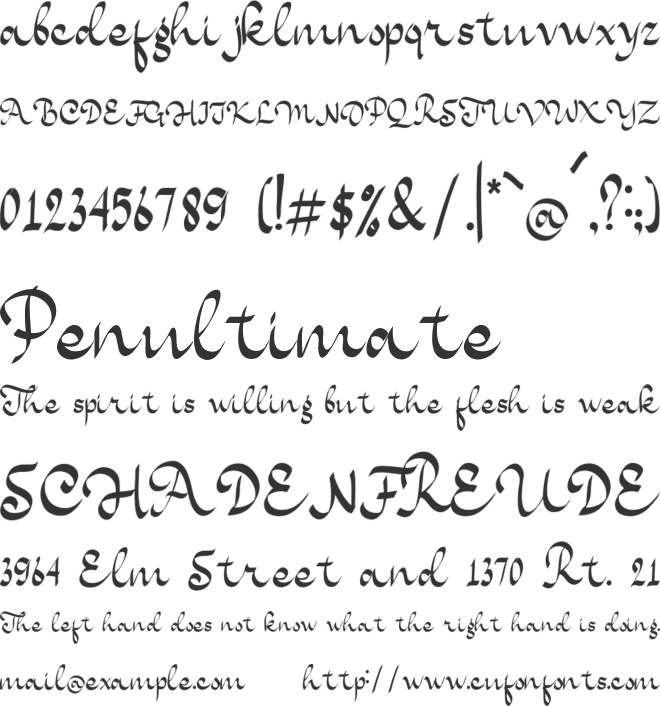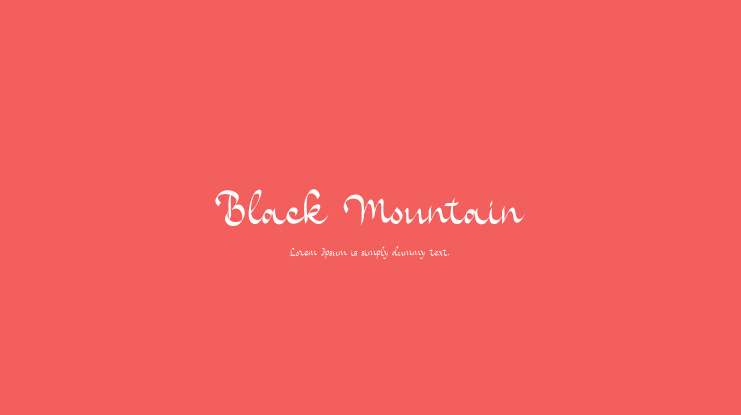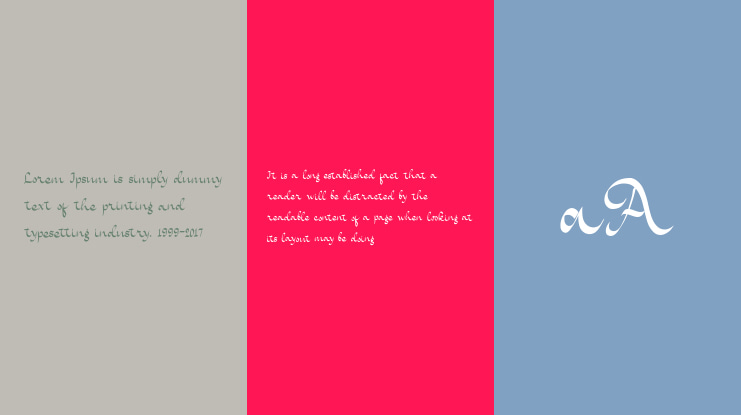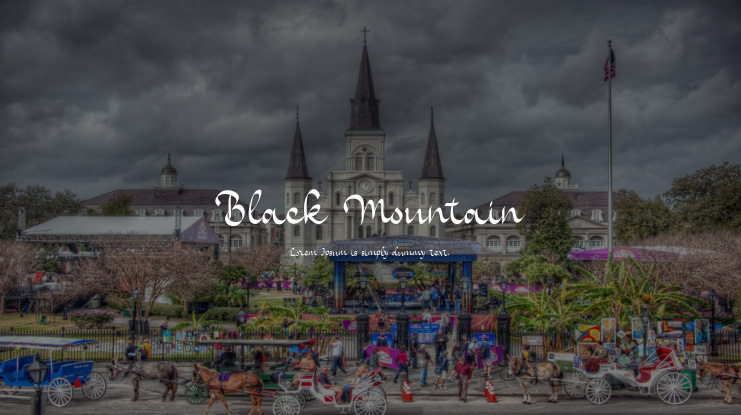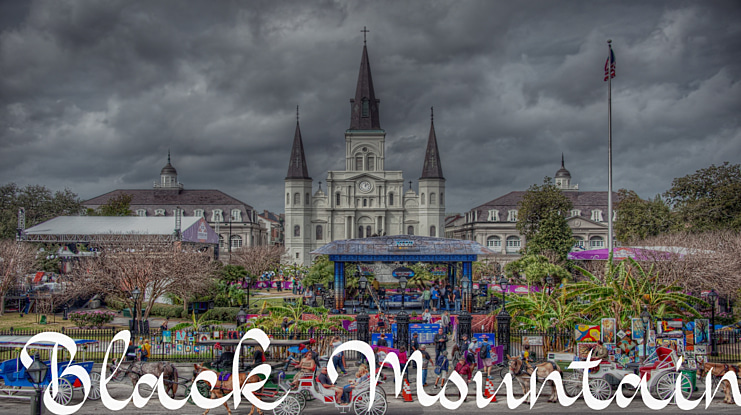
Black Mountain Font
Black Mountain is a beautiful and attractive script font that exudes grace and elegance. Its flowing, connected letters and stylish details make it perfect for creating designs that are both romantic and sophisticated. Use it for wedding invitations, branding, or any project that requires a touch of beauty.